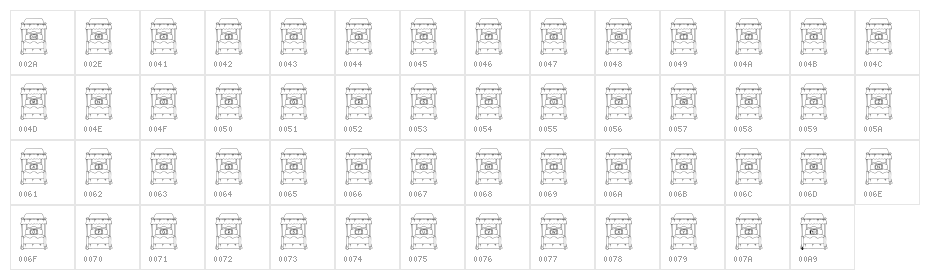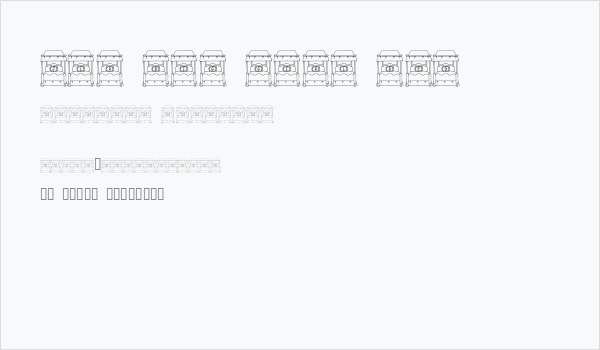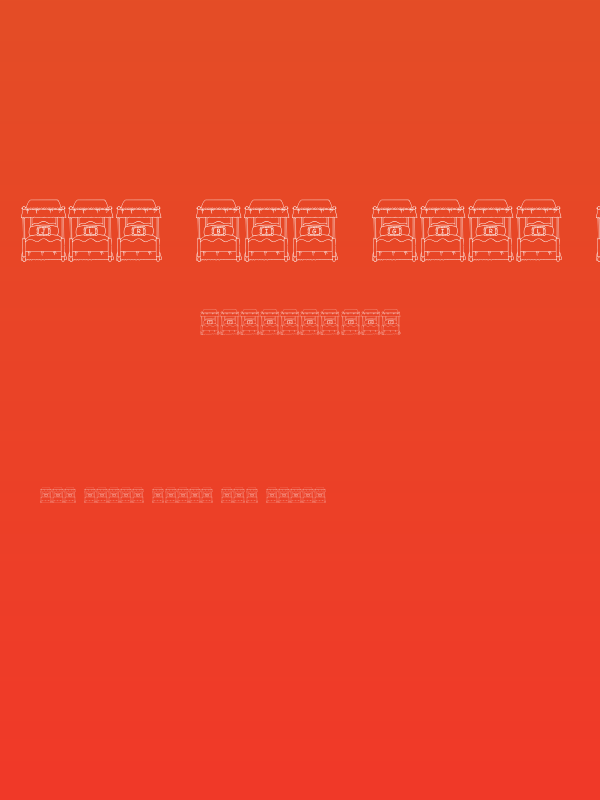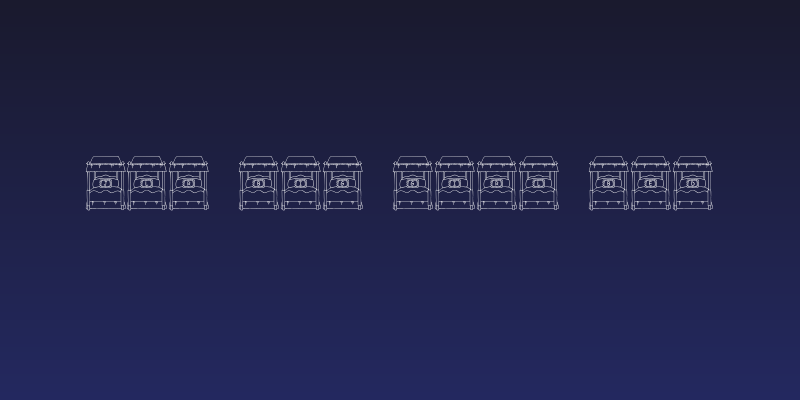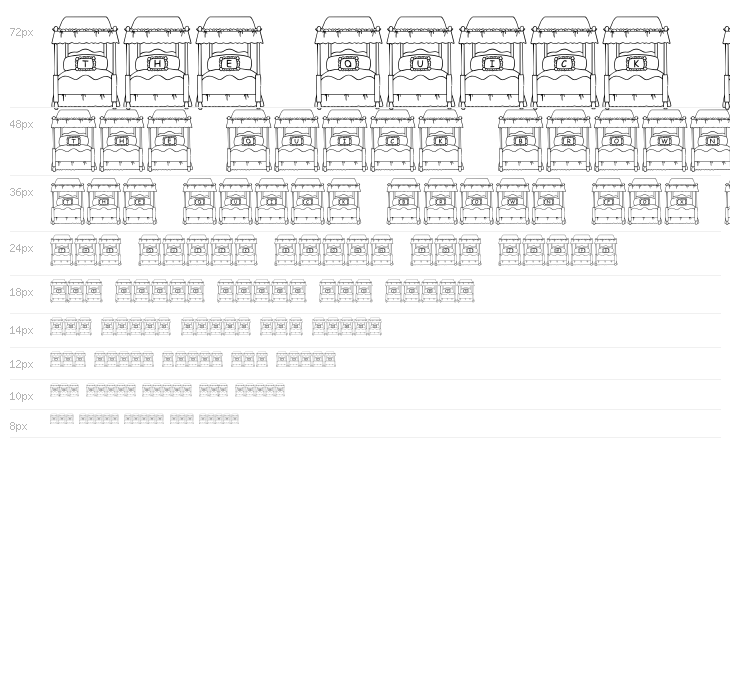
JLR Big Girl Bed Font
JLR Big Girl Bed Description
This is not a valid font. The image displays a series of illustrations depicting beds with a character in each, rather than a traditional font set. Each bed features a unique design, but they do not represent typographic characters or symbols suitable for text representation.
| Use Case | Decorative illustrations, not suitable for text. |
| Proposed Projects | This image could be used for children's room decor or educational materials, but not for typographic projects. |